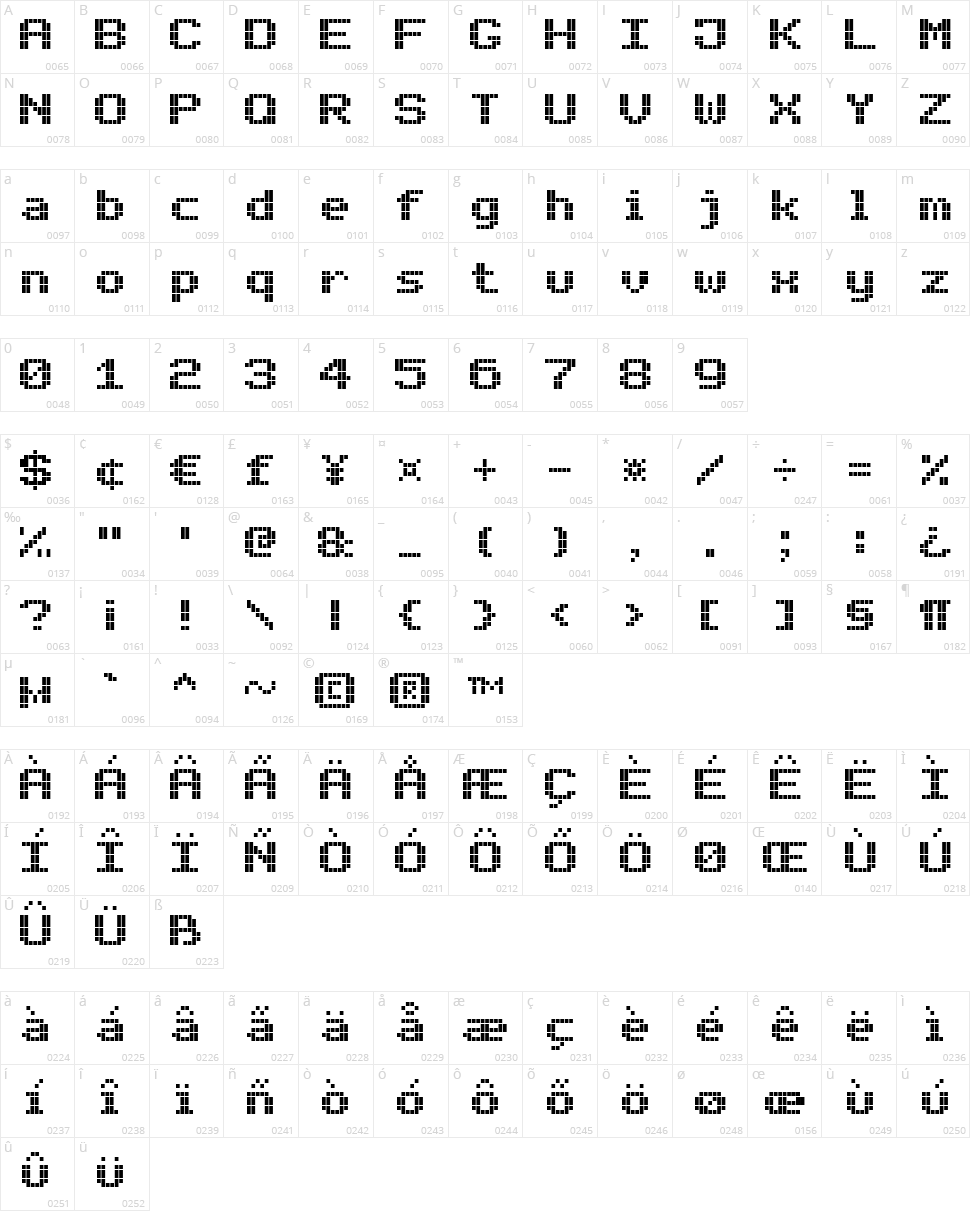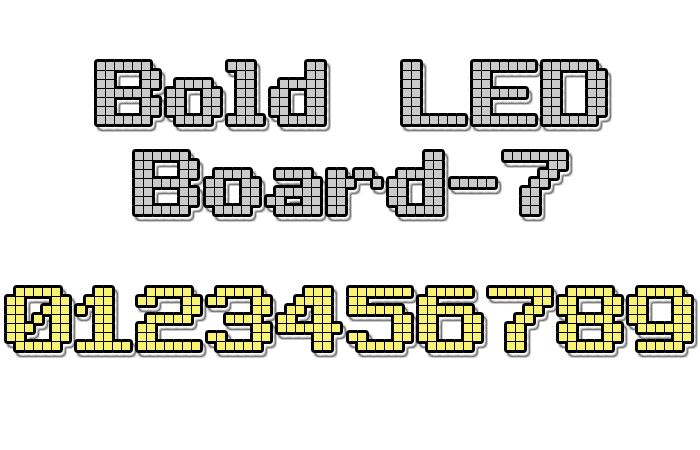
Bold LED Board-7
This is original bold font created in style a LED (Light Emitting Diode) matrix 7*7 units. Latin and Cyrillic code pages are supported.